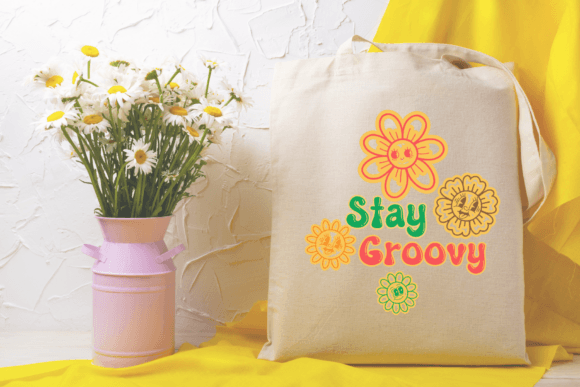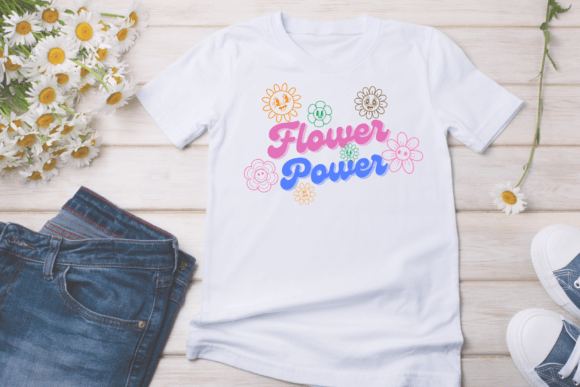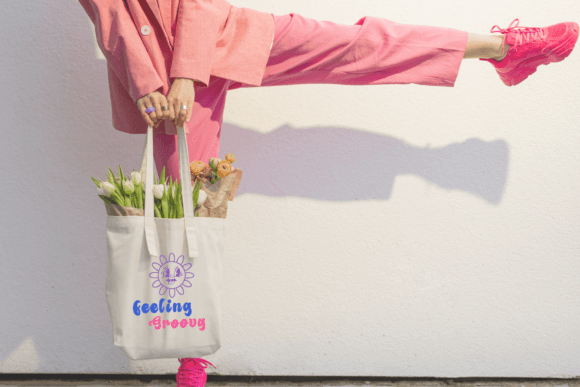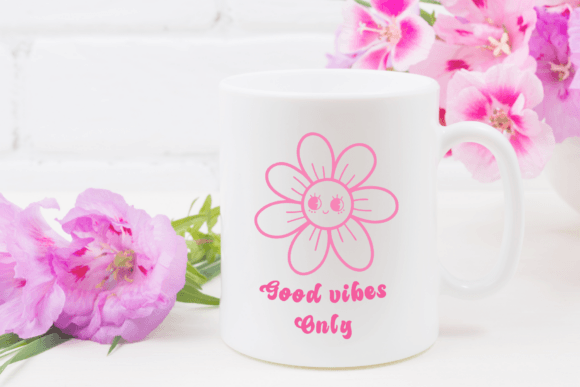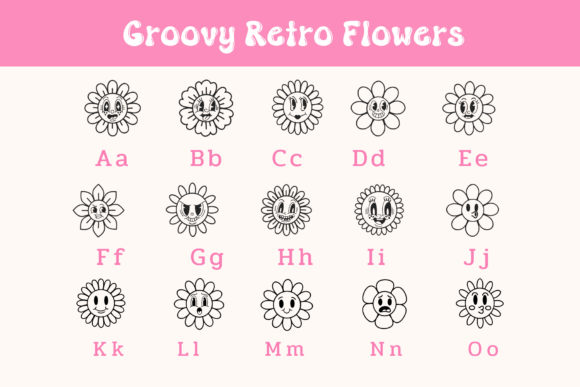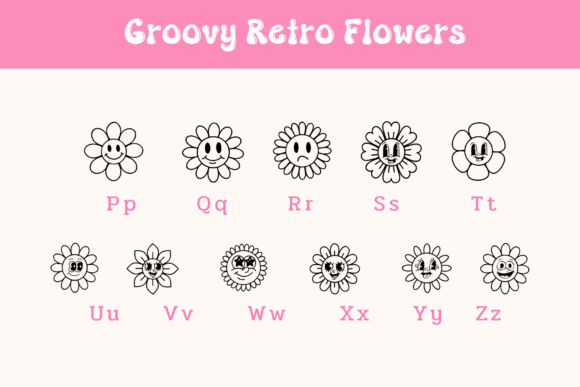
Groovy Retro Flowers Font: Add a Touch of Vintage Charm to Your Creative Projects
Are you looking for a unique and playful way to add some personality to your creative projects? Look no further than the Groovy Retro Flowers Font! This delightful dingbats font features a collection of cute flower faces in a trendy, retro style that’s perfect for designers, crafters, and DIY enthusiasts.
What is Groovy Retro Flowers Font?
Groovy Retro Flowers is a carefully curated set of flower designs that evoke the fun and carefree spirit of the 1960s and 1970s. This font is not just a collection of images, but a fully functional font that can be used to add a touch of vintage charm to a wide range of creative projects.
Key Features of Groovy Retro Flowers Font
- Cute Flower Faces: The font features a diverse collection of flower faces, each one uniquely designed to bring a smile to your face.
- Retro Style: The font’s retro style is inspired by the groovy designs of the 1960s and 1970s, making it perfect for projects that require a vintage touch.
- Dingbats Font: As a dingbats font, Groovy Retro Flowers can be used to add visual interest to your projects without the need for images or illustrations.
- Scalable: The font is scalable to any size, making it perfect for use on a variety of projects, from small crafts to large-scale designs.
Uses for Groovy Retro Flowers Font
The possibilities are endless when it comes to using Groovy Retro Flowers Font! Here are a few ideas to get you started:
- Wedding Invitations: Add a touch of vintage charm to your wedding invitations and save the dates with this beautiful font.
- DIY Crafts: Use the font to create custom labels, cards, and decorations for your DIY crafts.
- Decorations: Create custom wall art, garlands, and other decorations using the font.
- Logos: Use the font to create a unique and memorable logo for your business or brand.
- Social Media Graphics: Add a touch of personality to your social media graphics, such as Instagram posts and Facebook covers.
Why Choose Groovy Retro Flowers Font?
With so many fonts to choose from, why should you choose Groovy Retro Flowers? Here are a few reasons:
- Unique: The font’s unique retro style and cute flower faces make it a standout from more traditional fonts.
- Versatile: The font can be used on a wide range of projects, from small crafts to large-scale designs.
- Easily Customizable: The font can be easily customized to fit your project’s specific needs.
Tips for Using Groovy Retro Flowers Font
Here are a few tips for getting the most out of Groovy Retro Flowers Font:
- Experiment with Colors: The font looks great in a variety of colors, so don’t be afraid to experiment and find the perfect hue for your project.
- Mix and Match: Mix and match different flower faces to create a unique and personalized design.
- Use with Other Fonts: The font pairs well with a variety of other fonts, so feel free to get creative and experiment with different combinations.
Groovy Retro Flowers Font is a fun and versatile font that’s perfect for designers, crafters, and DIY enthusiasts. With its unique retro style and cute flower faces, it’s sure to add a touch of vintage charm to any project. Whether you’re creating wedding invitations, DIY crafts, or social media graphics, this font is sure to inspire your creativity and help you stand out from the crowd.